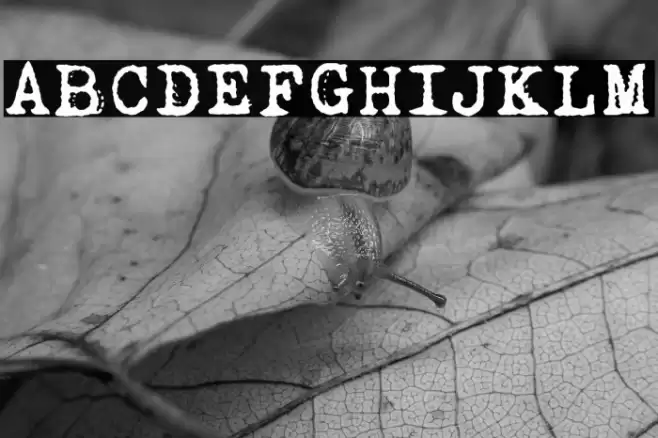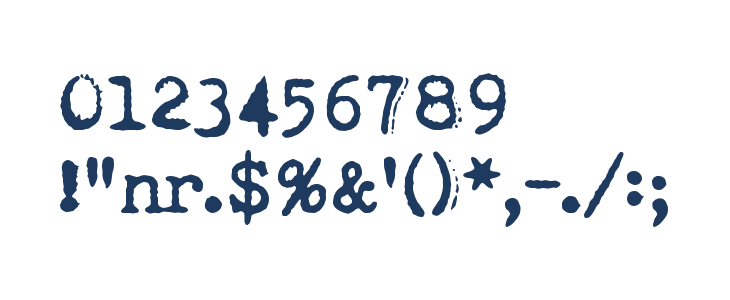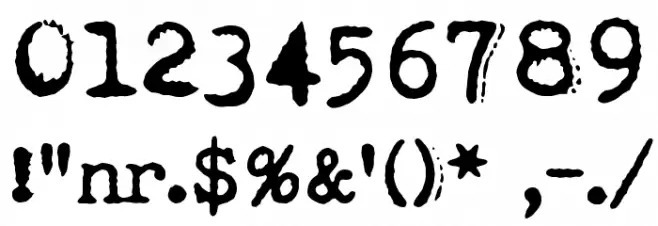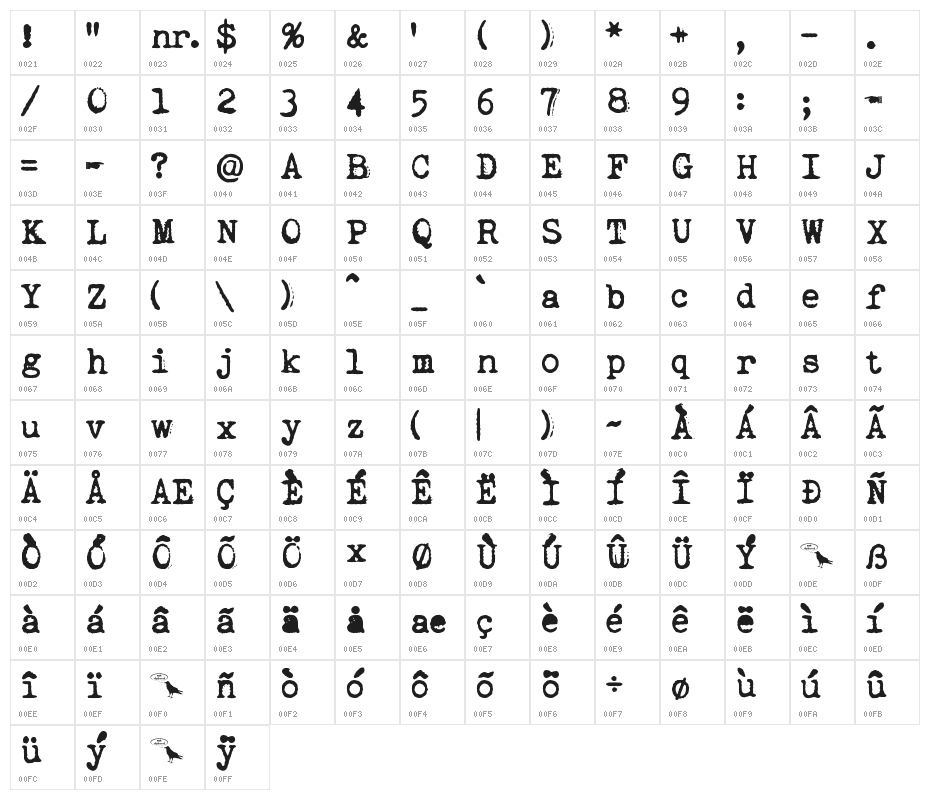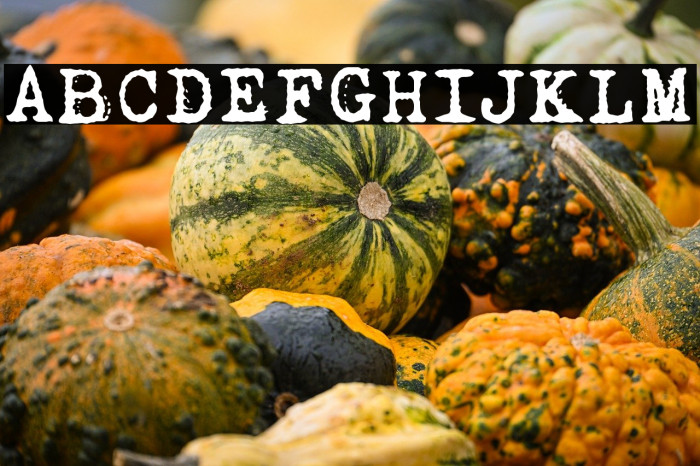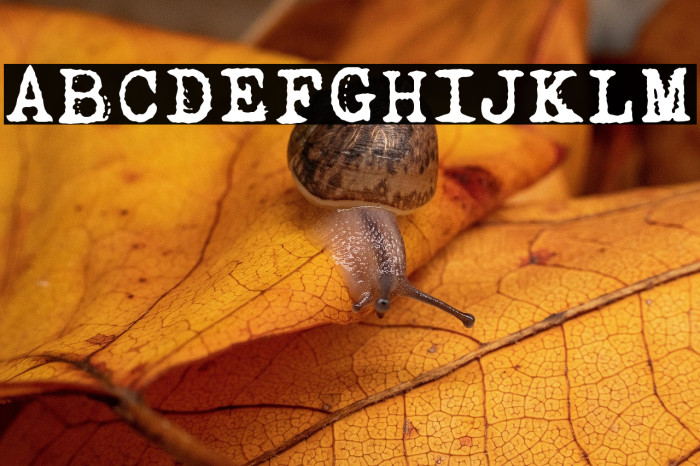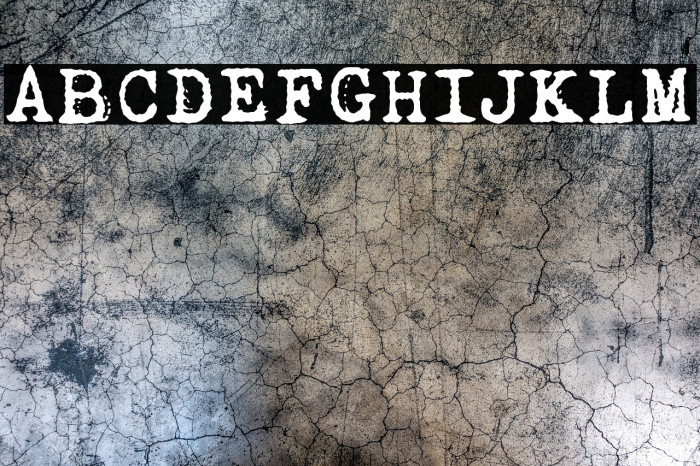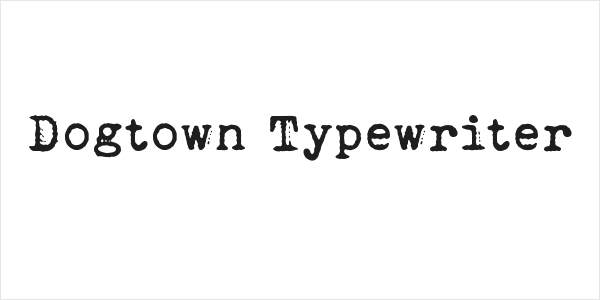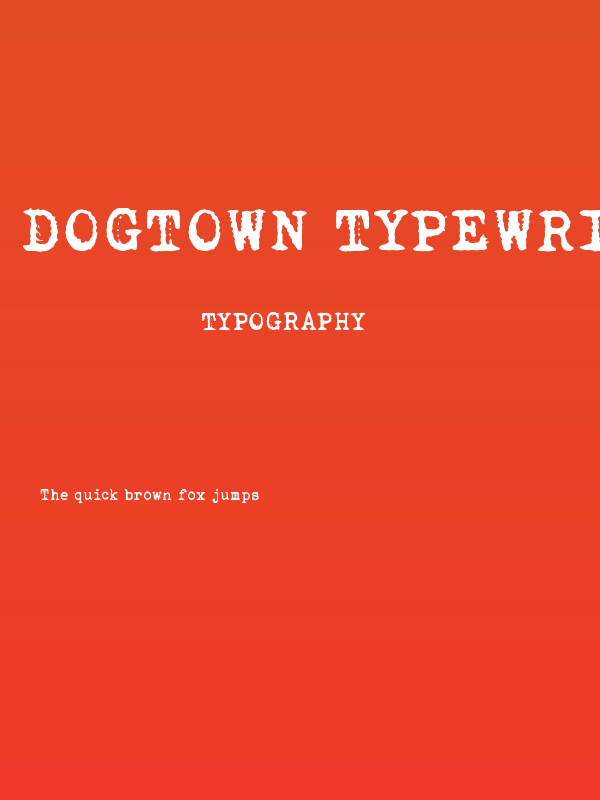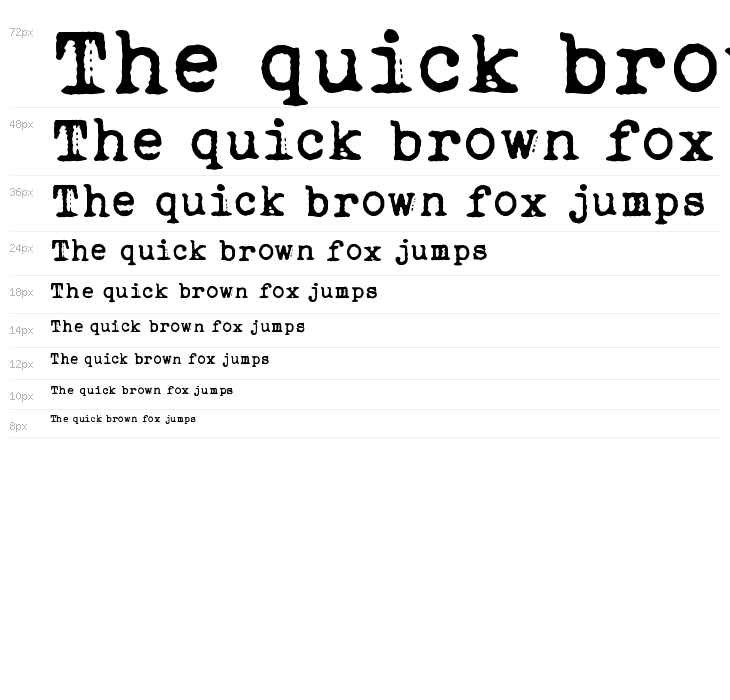
Dogtown Typewriter Font
Dogtown Typewriter Description
This font exudes a vintage, typewriter-inspired aesthetic with a distressed, grunge effect that adds character and a sense of history to the text. The uppercase and lowercase letters maintain a consistent style, with slightly irregular edges and a textured appearance that mimics the look of ink on paper. The numerals and special characters follow the same design principles, ensuring a cohesive look across all glyphs. This font is perfect for projects that require a retro or industrial feel, such as posters, book covers, or branding for artisanal products.
A vintage, distressed typewriter-style font with a grunge effect from Uncategorized fonts.
- Font: Dogtown Typewriter
- Overall Style: Vintage